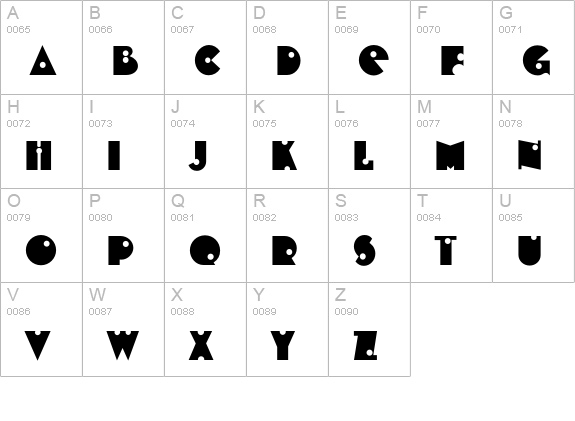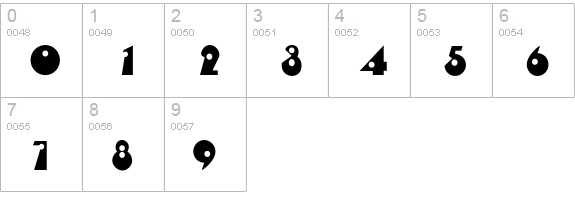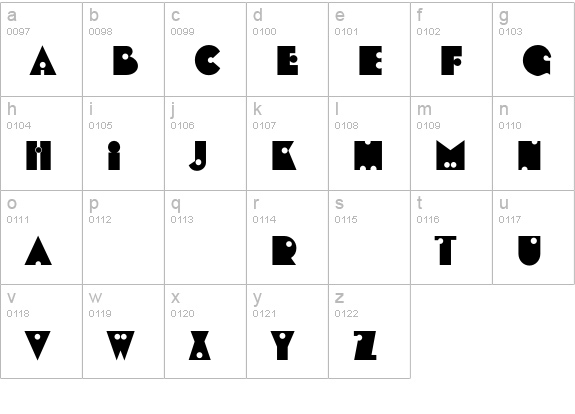
Billings Font Details
Introducing the captivating Billings font, a versatile typeface that effortlessly combines modern elegance with classic sophistication. With its sleek lines and graceful curves, Billings exudes a timeless charm that is perfect for a wide range of design projects. Whether you are creating a logo for a luxury brand, designing a wedding invitation, or crafting a stylish print advertisement, Billings is sure to elevate your work to the next level. The best part? Billings is available for free download at FontsMarket.com, making it easily accessible to designers and creatives looking to add a touch of refinement to their projects without breaking the bank. Don't miss out on this opportunity to enhance your designs with the beauty and artistry of Billings font. Download it today and let your creativity soar!